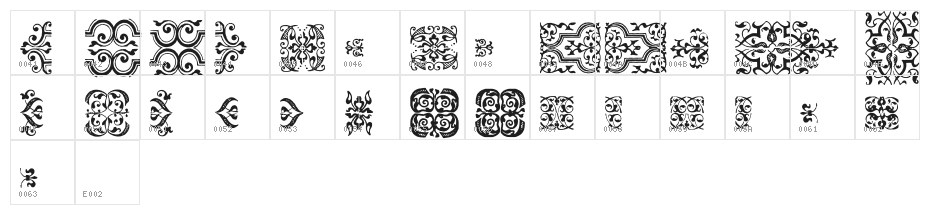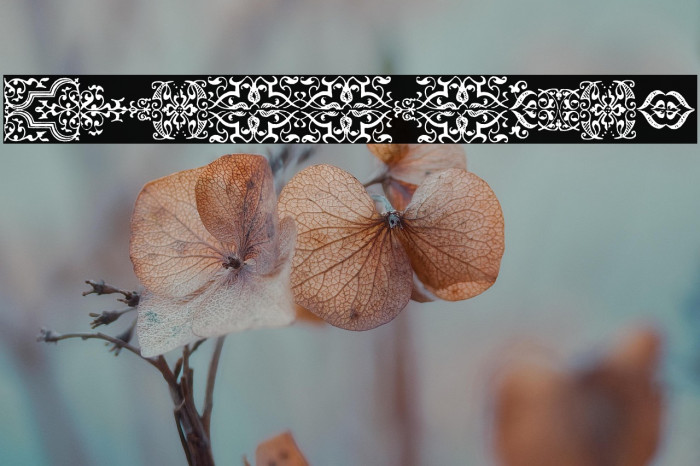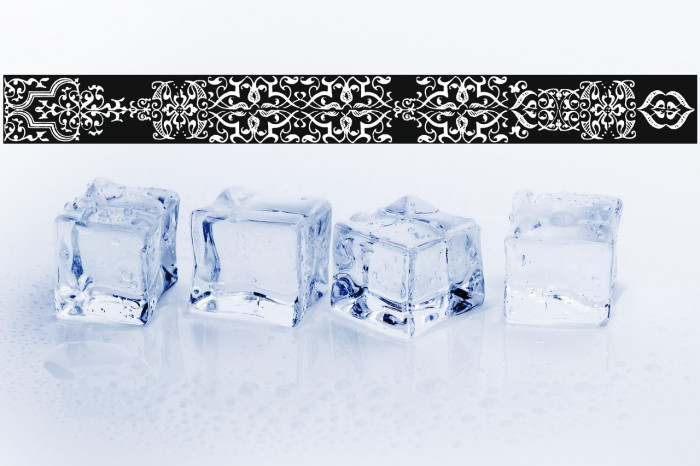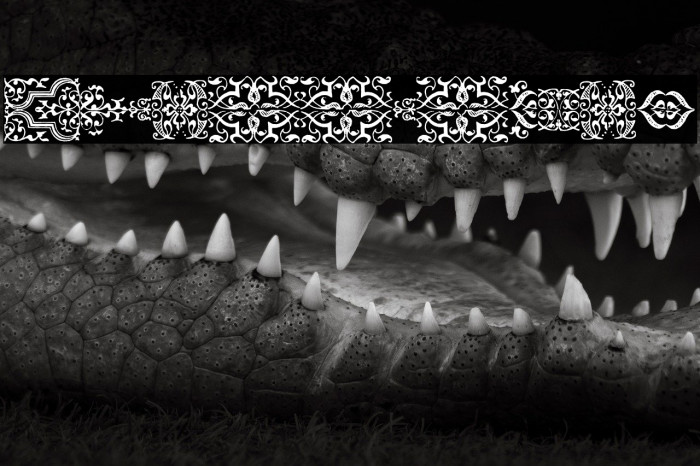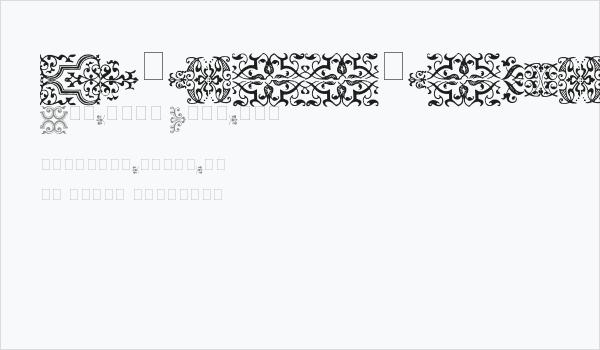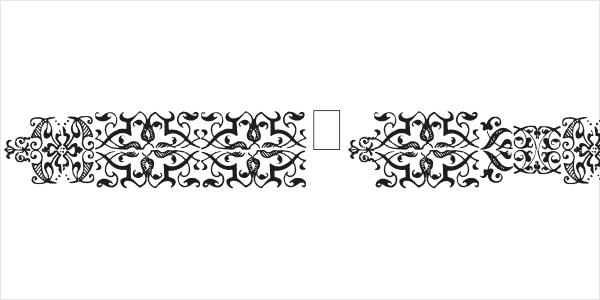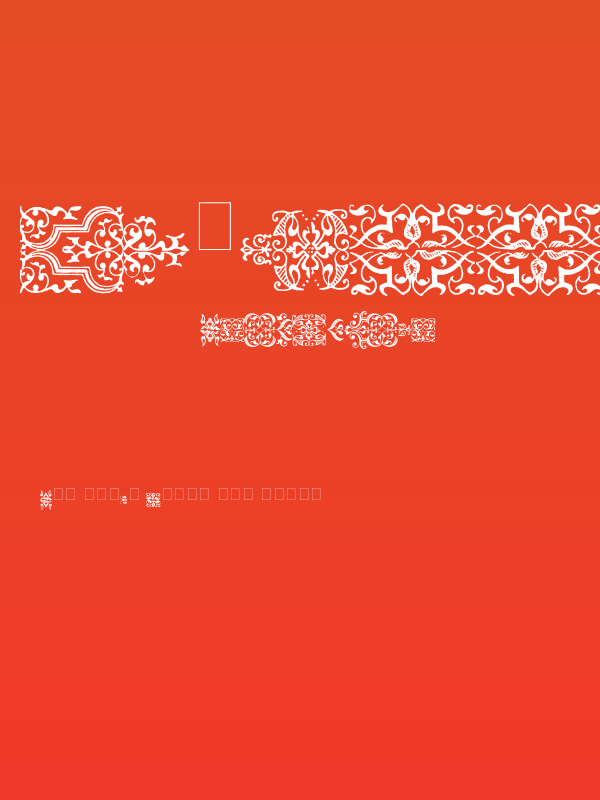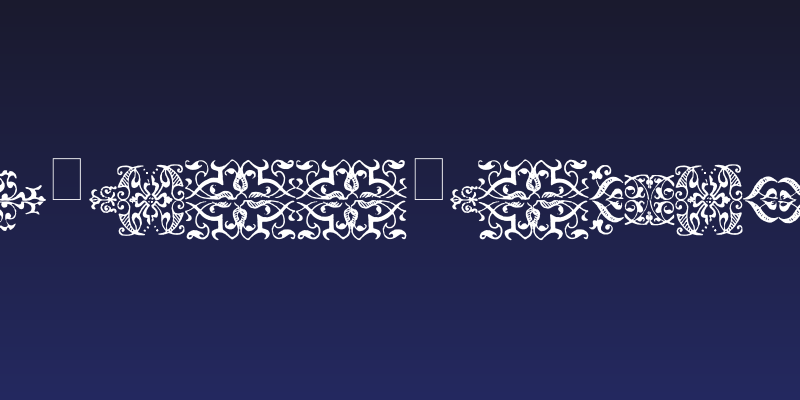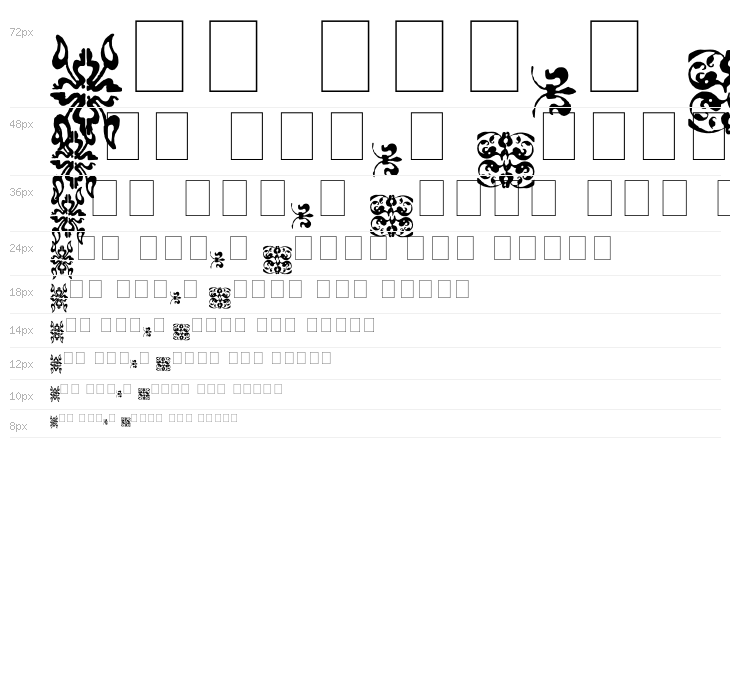
IM_FELL_FLOWERS_1 Font
IM_FELL_FLOWERS_1 Description
This design features an intricate and decorative style, characterized by elaborate floral and ornamental patterns. The elements are highly detailed, showcasing a blend of curves and symmetrical shapes that evoke a sense of elegance and sophistication. The design is reminiscent of historical or vintage motifs, often seen in classical architecture or antique manuscripts. The ornamental nature of the design makes it suitable for decorative purposes, adding a touch of refinement and artistic flair to any project.
| Overall Style | Vintage, Decorative |
| Use Case | Decorative elements, Borders, Invitations |
| Proposed Projects | Ideal for use in decorative borders, invitations, certificates, or any project requiring an elegant, vintage touch. |